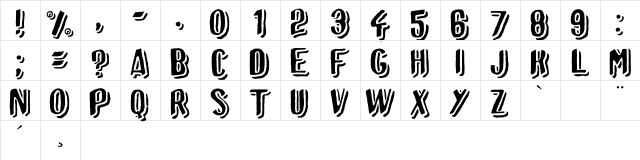
Afro Add plain Regular
Design Context for Afro Add plain Typeface
Afro Add plain is a composed and adaptable typeface that performs quietly and consistently across a wide range of design contexts.